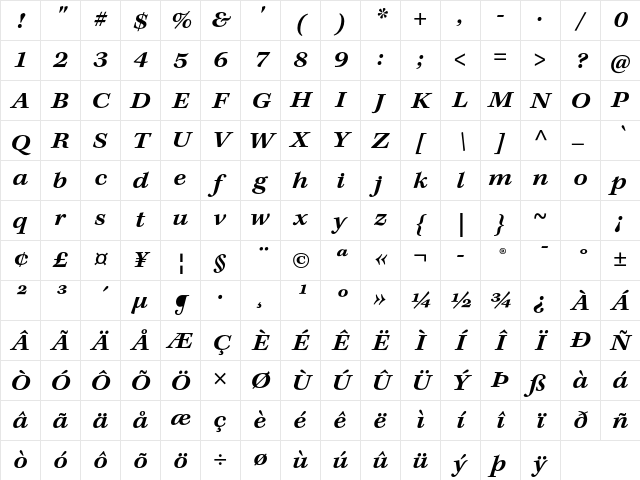
Kepler Std Semibold Extended Italic Caption
Style: Semibold Extended Italic Caption
Complete Kepler Std Semibold Extended Italic Caption glyph index. Displaying only characters natively supported by Kepler Std Semibold Extended Italic Caption font.
Design Context for Kepler Std
Kepler Std is a composed and adaptable typeface that performs quietly and consistently across a wide range of design contexts. The slanted form adds forward momentum and visual energy. Its bold stroke weight gives it real presence on the page.